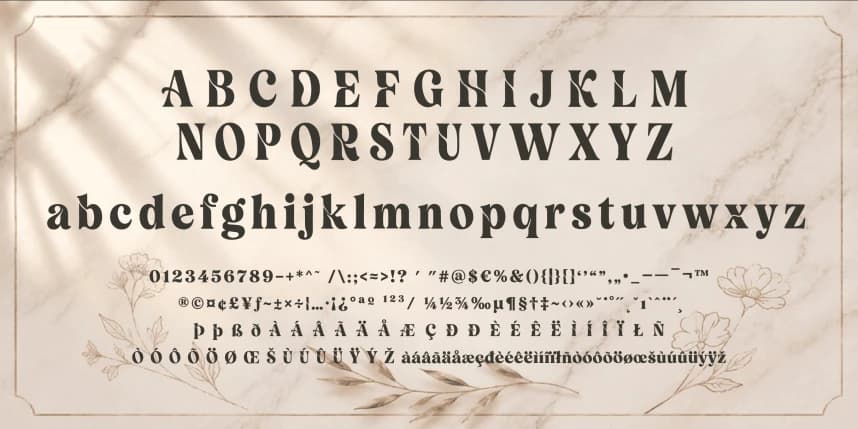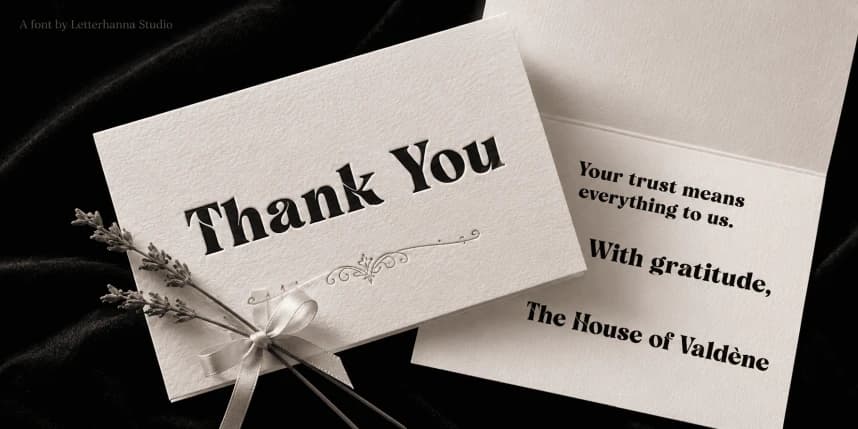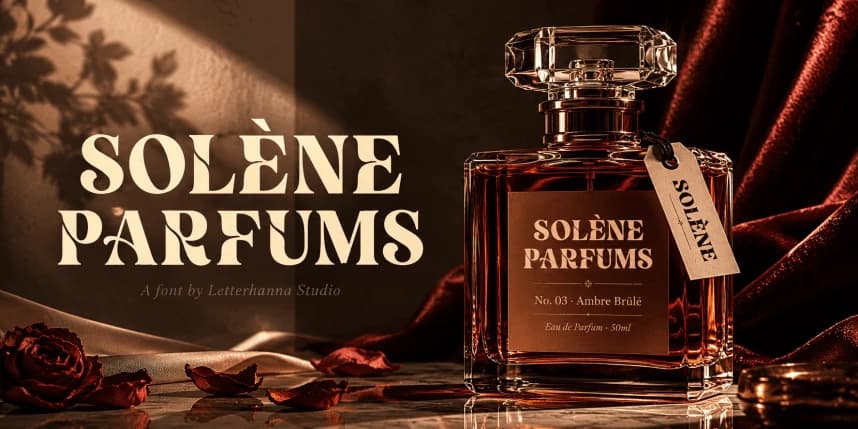
Velour Delamio Font
Velour Delamio Font is a high-contrast display serif built to make every headline, logo, and title feel like a statement — not just a label. It carries the soul of classic editorial typography while wearing something far more daring: thick strokes that anchor, thin strokes that breathe, and serifs that finish every letter like a perfectly tailored suit.